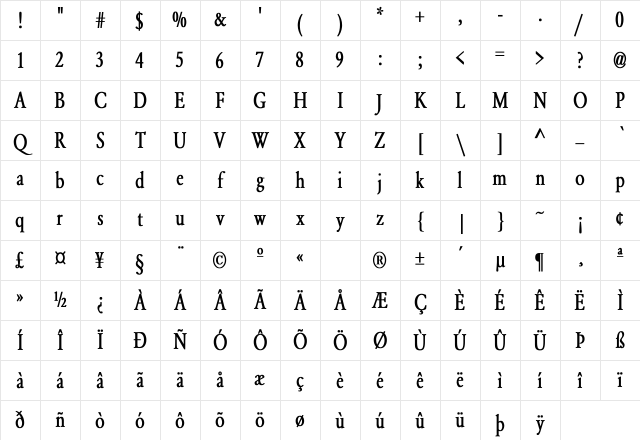
Smedley Condensed Bold Regular
Design Context for Smedley Condensed Bold
Smedley Condensed Bold is a composed and adaptable typeface that performs quietly and consistently across a wide range of design contexts. Its bold stroke weight gives it real presence on the page. Its narrow stance lets it pack a punch even in space-constrained designs.